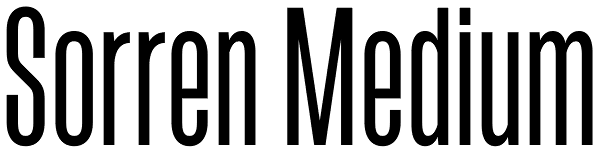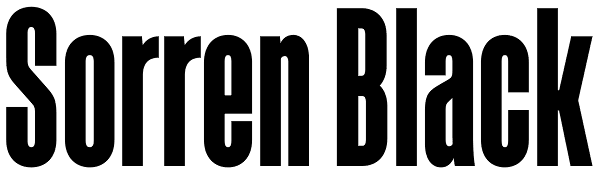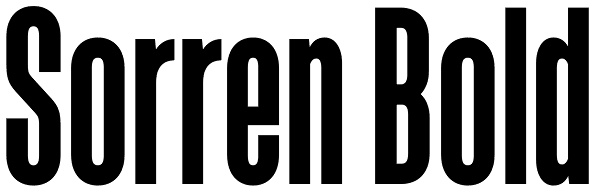
Sorren
Sorren is a definitive bold condensed sans influenced by neo-grotesque designs. A relatively low stroke contrast complimented with sharp, horizontal stroke ends lend an unyielding appearance, while it’s rounded forms and refined curves juxtapose its...